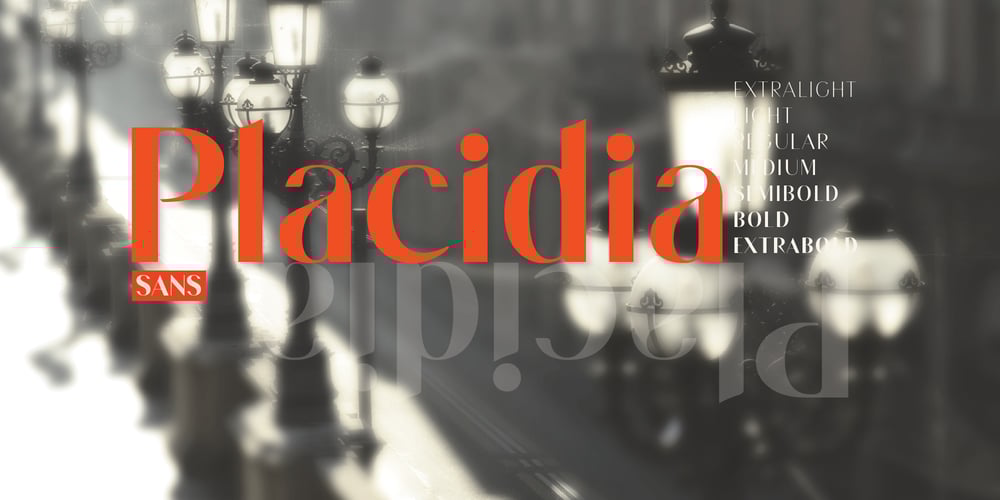
Placidia Sans Font Family was designed by Asgeir Pedersen and published by Asgeir Pedersen. Placidia Sans contains 7 styles and family package options. Placidia Sans is intended for all kinds of texts and text sizes, especially headings and titles. Try it together with Placidia or Placidia Display, or for contrast, another geometric style serif font, such as the Burdigala X Sans.The Placidia fonts, including the Normal and Display versions, are both elegant and stylish, soft and strong, all the way in weights from extra light to extra bold.